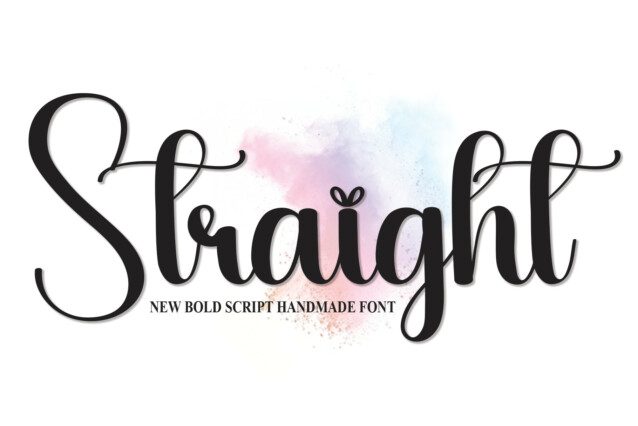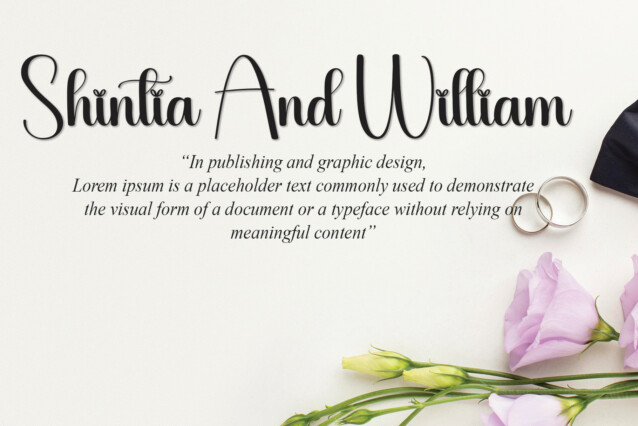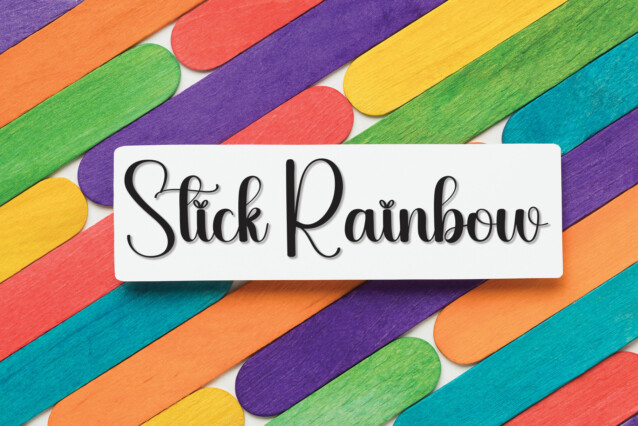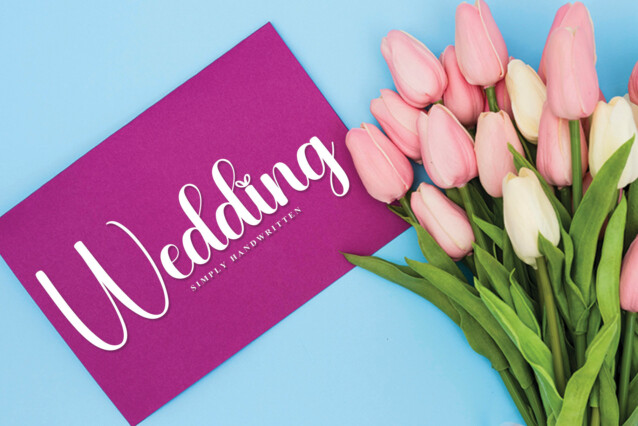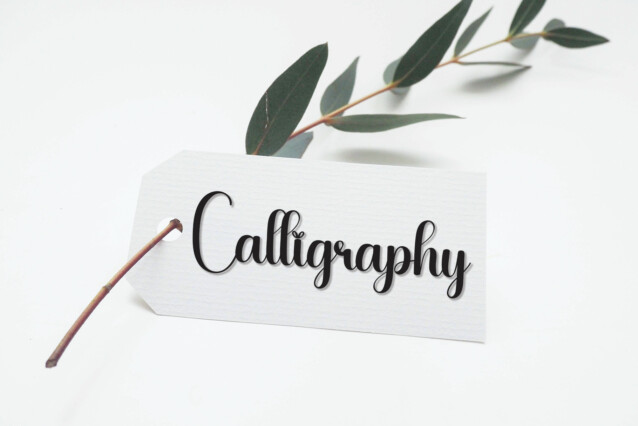
Straight Script Font
Straight Script Font is a romantic and sweet calligraphy typeface with characters that dance along the baseline. It will add a luxury spark to any design project that you wish to create!